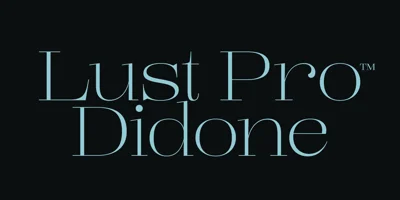
Lust Pro Didone Font
Lust Pro Didone Font is ideal for high-fashion and luxury applications including prestigious fashion magazines, luxury brand advertising, elegant cosmetics packaging, high-end jewelry catalogs, sophisticated wine labels, premium book covers, exclusive event invitations, and upscale retail branding. This exquisite typeface brings classical elegance and modern sophistication to projects requiring the ultimate in typographic refinement and luxury appeal.
What makes Lust Pro Didone Font exciting is its perfect fusion of classical Didone traditions with contemporary luxury design sensibilities. The font features dramatic contrast between thick and thin strokes with razor-sharp serifs that create stunning visual impact and undeniable elegance. Its sophisticated character design incorporates precise optical adjustments and refined details that ensure exceptional readability while maintaining the commanding presence essential for luxury applications.
The Lust Pro Didone Font family encompasses comprehensive weight options from delicate hairline to bold display variants, each maintaining the signature high-contrast aesthetic. The professional family includes matching italics, small caps, and extensive OpenType features including stylistic alternates and ligatures. Extended character sets support multiple languages, making it ideal for international luxury brands requiring global typography solutions.
Luxury designers and premium brands consistently select Lust Pro Didone Font for projects demanding the highest level of typographic sophistication and visual impact. Whether developing haute couture campaigns, creating luxury product packaging, or designing exclusive editorial content, this font delivers unmatched elegance and professional credibility. Its unique combination of classical heritage and contemporary luxury makes it an indispensable tool for design professionals working in fashion, beauty, and luxury markets who demand typography that embodies refinement, exclusivity, and timeless sophistication.